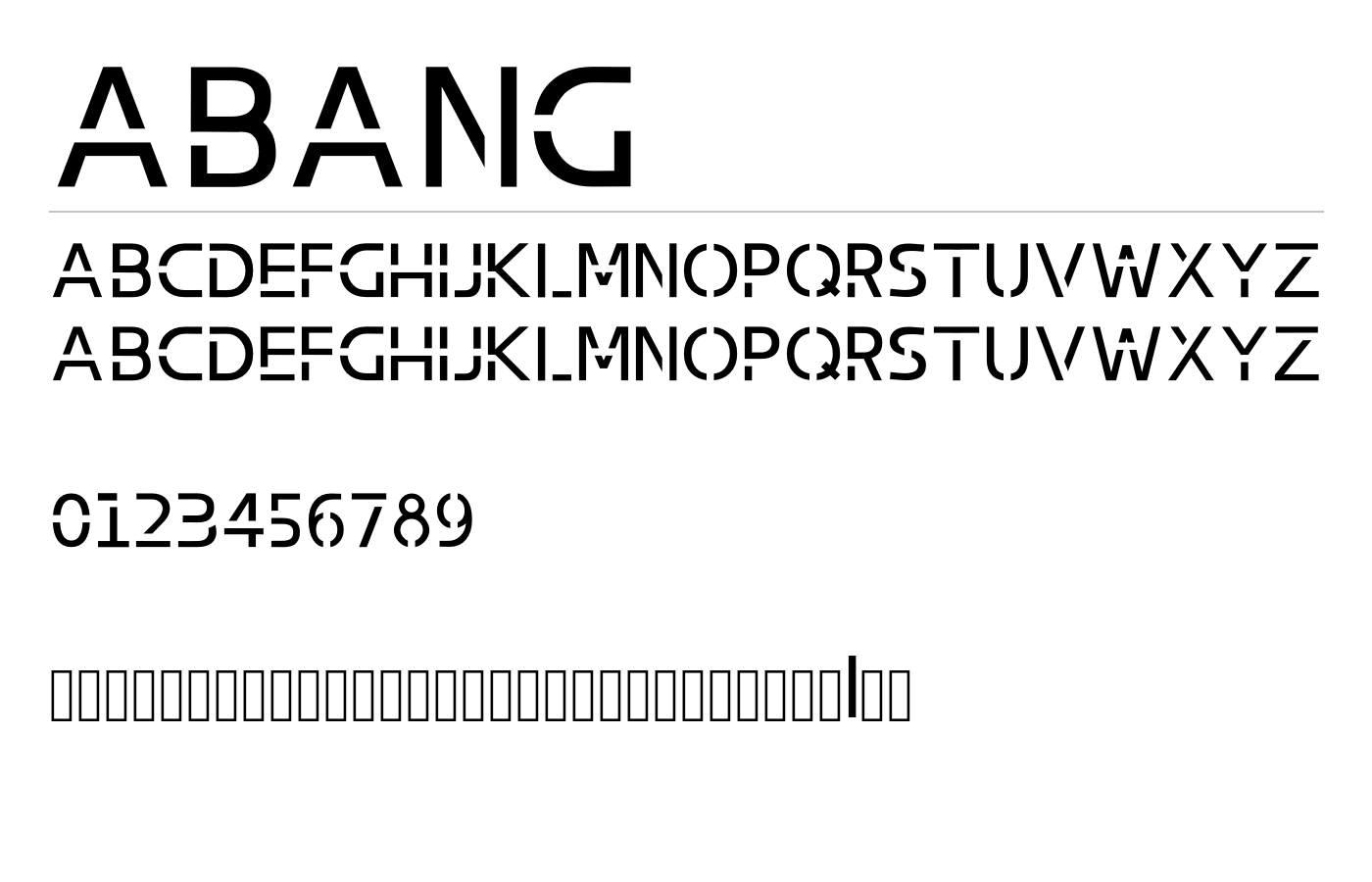
Abang is a modern, geometric sans serif font characterized by its bold weight and distinctive stencil-style breaks within each letterform. With its clean lines, high x-height, and futuristic feel, this font exudes a contemporary and tech-savvy personality, making it ideal for eye-catching headlines, logos, and branding in innovative and digital-focused industries. Its structured yet dynamic design ensures strong visual impact while maintaining readability.
Abang Font
About Abang Font